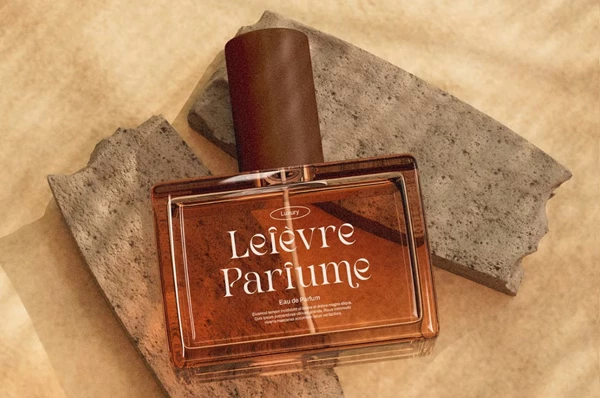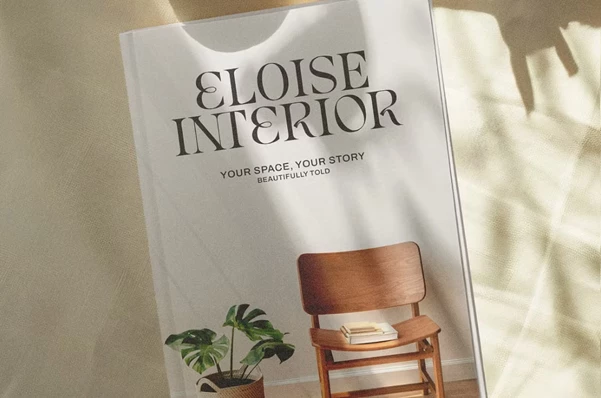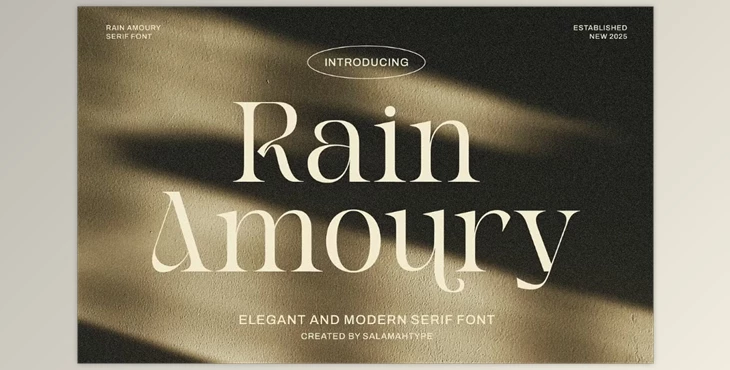
Rain Amoury - Elegant Font:
Rain Amoury is a fancy serif font that will make your project look so classy and sophisticated. This font is perfect for logos, invitations, beauty brands, and anything related to fashion. The soft and detailed curves make it polished and luxurious, which works for a multitude of uses.
Some great features of Rain Amoury - Elegant Font:
- Alternates & Ligatures
- Oblique Version
"Rain Amoury - Elegant Font" Samples: